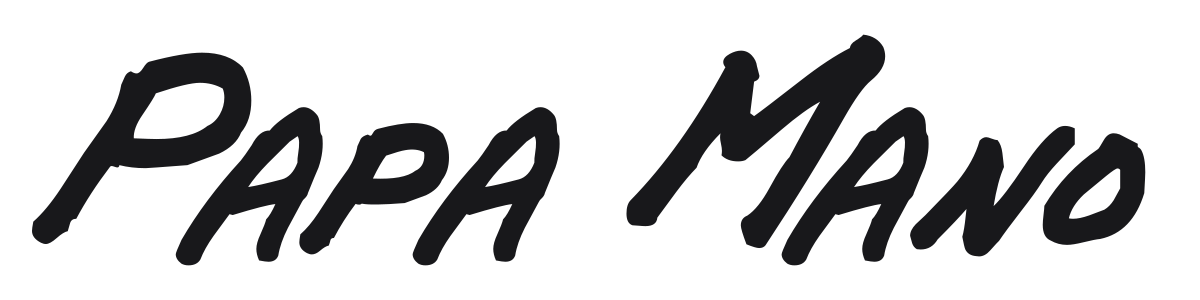
Papa Mano
Papa Mano is a bold, casual handwritten face from Astigmatic that captures the confident slant and thick strokes of someone writing fast with a chunky marker. The letters lean forward with a natural italic rhythm, feeling spontaneous and loose rather than carefully constructed. It works well for headlines, packaging, and informal branding where you want something that reads as energetic and personal.